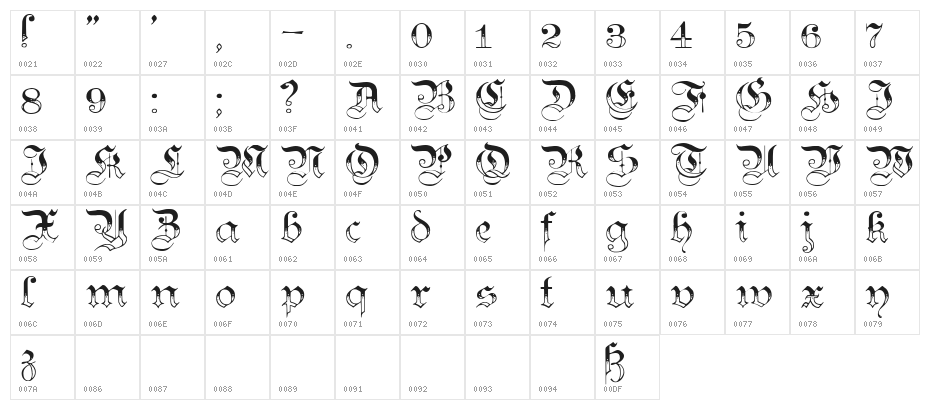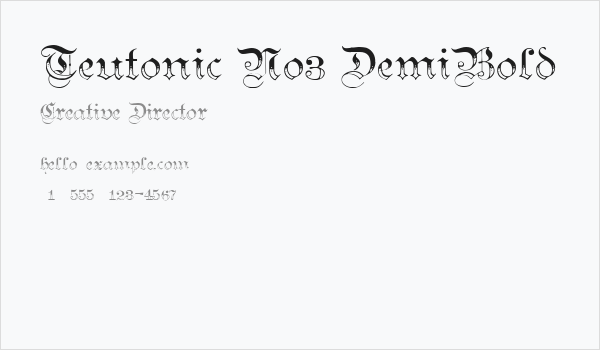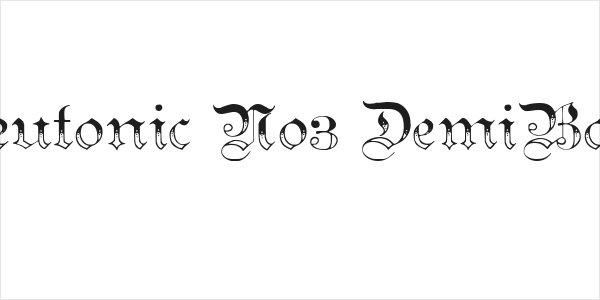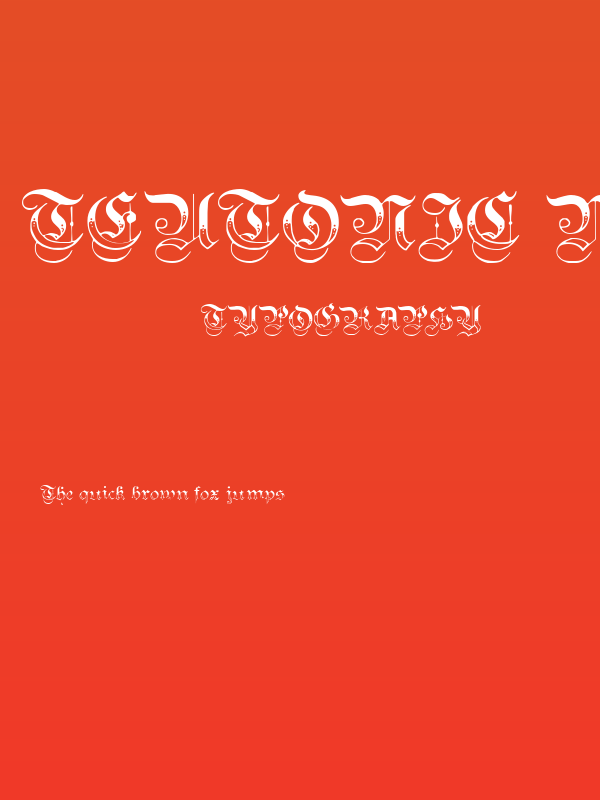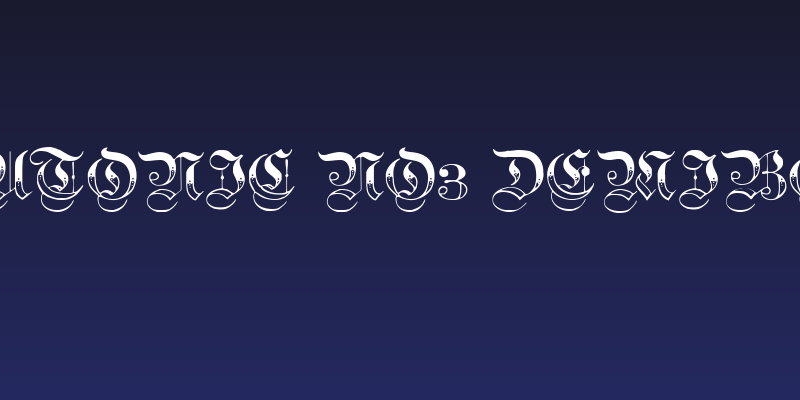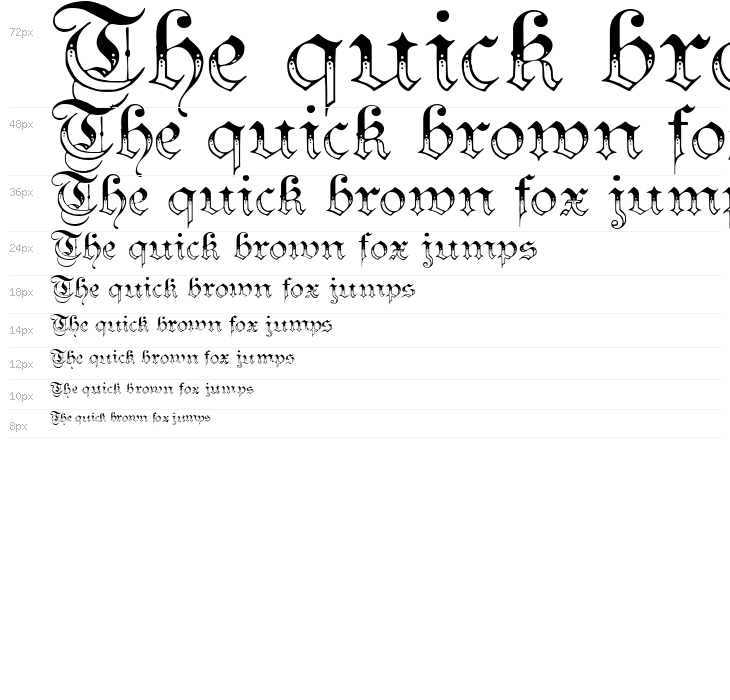
Teutonic No3 DemiBold Font
Teutonic No3 DemiBold Description
This font exudes a strong Gothic influence, characterized by its intricate and ornate design. The letters are embellished with flourishes and sharp edges, reminiscent of medieval script. The uppercase letters are particularly elaborate, with decorative elements that enhance their visual impact. The lowercase letters maintain a consistent style, with pointed terminals and a slightly condensed form. Numbers and special characters are designed to match the overall aesthetic, featuring similar embellishments and a bold presence. This font is ideal for projects that require a historical or dramatic flair.
| Proposed Projects | Ideal for historical-themed designs, book covers, posters, and branding that requires a dramatic or vintage touch. |